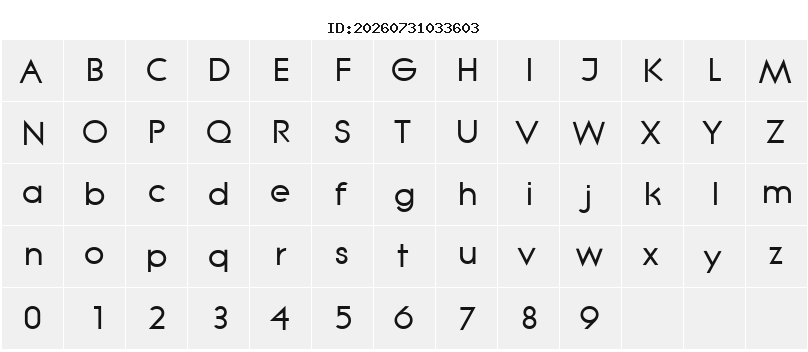
Litera-Serial Preview
About Litera-Serial.ttf
Litera-Serial.ttf is a modern, elegant sans-serif font designed for ultimate readability and visual harmony. Perfect for branding, headlines, web design, and print materials.